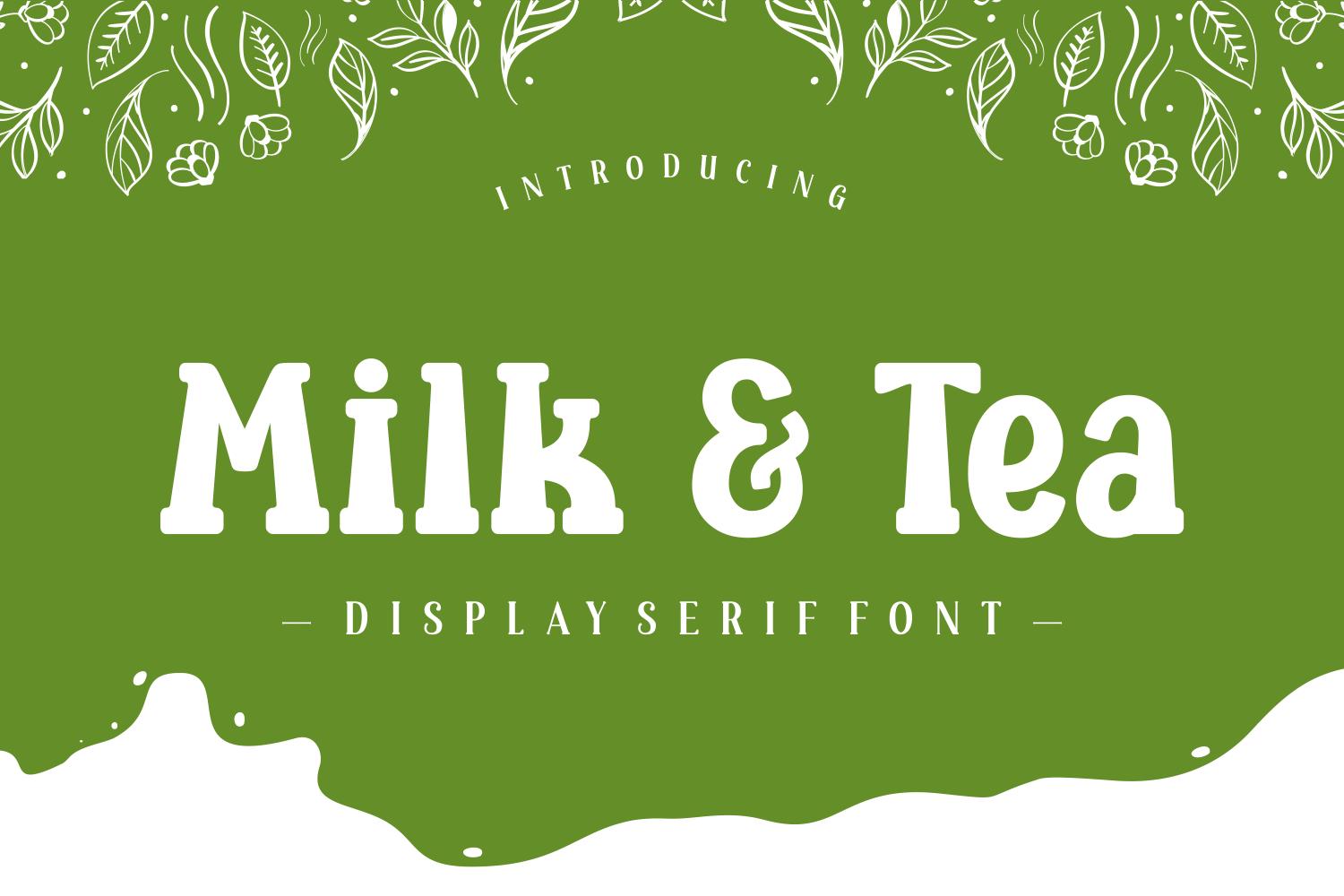
Milk & Tea Font Description
Milk & Tea is a cool, bold, and trendy-looking display font. No matter the topic, this font will be an incredible asset to your fonts’ library, as it has the potential to elevate any creation.